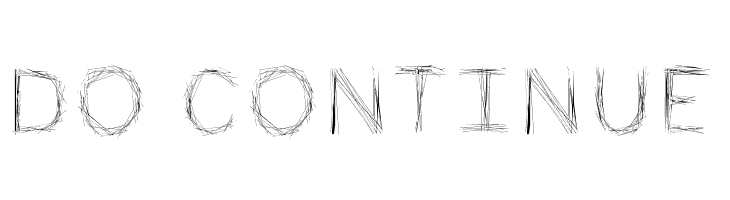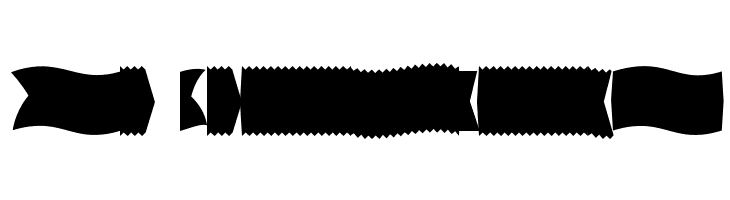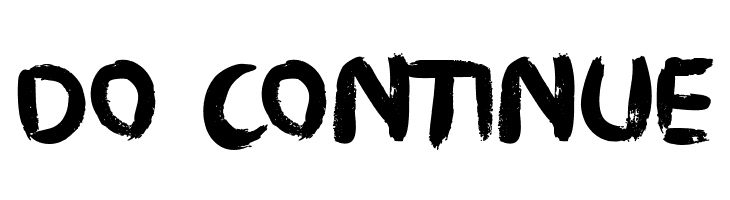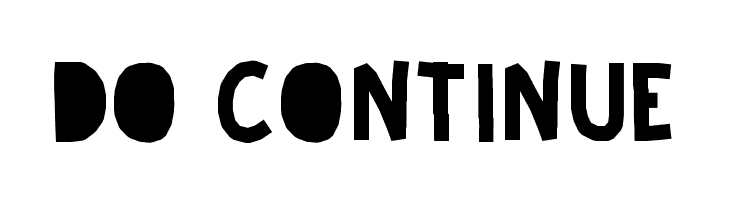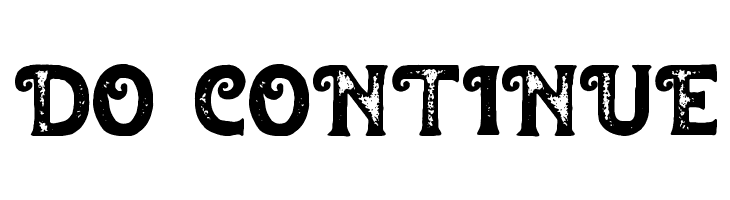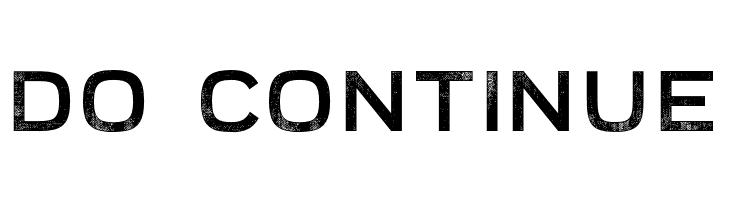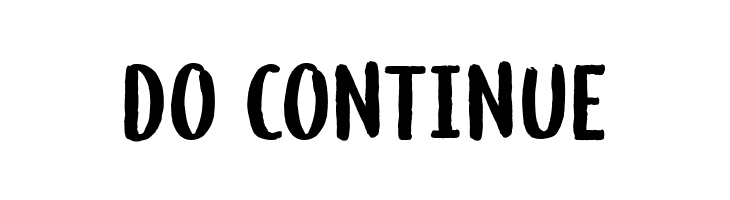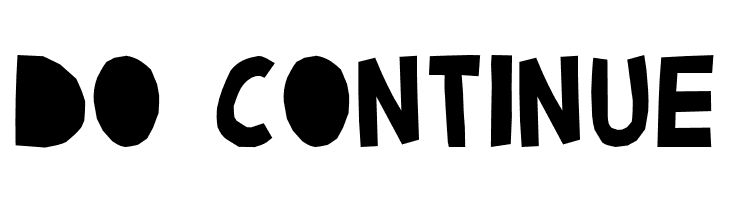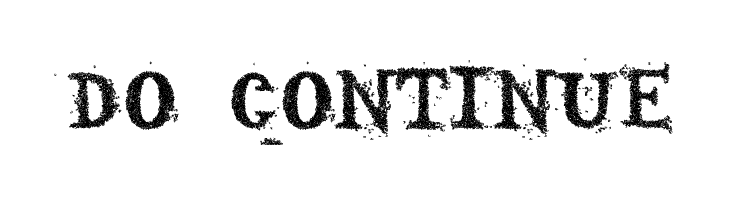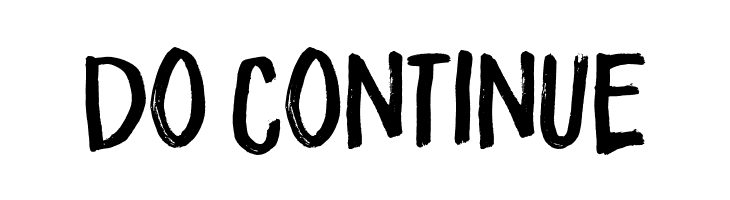
( Matt Bruinooge )
A sketch-like, hand-drawn font with dynamic, textured strokes.
( Måns Grebäck - www.mansgreback.com )
Festive, decorative banners and ribbons with varied edges and embellishments.
( Måns Grebäck - www.mansgreback.com )
A bold, brush-style font with a hand-painted, textured appearance.
( Nina - www.cookiesinthesky.com )
A playful, handcrafted font with a bold, paper-cut style.
( Nur Cholis Majid )
A bold, distressed font with a vintage, handcrafted appearance.
( Parker Creative - Alan Parker - fontbundles.net/parker-creative OFF SITE )
A distressed, bold font with a vintage, textured style.
( Phitradesign - Philip Trautmann - www.phitradesign-fonts.com )
A bold, hand-drawn font with a rustic and organic feel.
( PineStreetDigital - Pia Drent - cargocollective.com/piadrent OFF SITE )
A playful, irregular font with a hand-crafted, cut-out paper style.
( Pisto Casero - Gilberto Moya Perona - www.pistocasero.com )
A distressed, vintage-style serif font with a textured, handcrafted appearance.
( Pizzadude - Jakob Fischer - www.pizzadude.dk/ )
A bold, hand-painted font with a textured, artistic style.
( Poemhaiku - Huong Le Thi Thu - www.behance.net/poemhaiku )
A textured, handcrafted font with a chalk-like appearance.
( PutraCetol Studio - Putra Novembria Candra Kusuma - creativemarket.com/putracetol )
A tall, narrow font with a rough, vintage texture and a handcrafted feel.
( Qkila - Quentin Aquila - www.creativefabrica.com/designer/qkila/ )
A decorative font with stitching-like embellishments, offering a handcrafted and artistic feel.
( Rifan Asri )
A bold, slanted brush-style font with textured strokes and expressive character.
( Roman Paslavskiy - creativemarket.com/seveniwe )
A rugged, distressed font with a vintage, weathered look.
( Runsell Studio - creativemarket.com/RunsellStudio )
A bold, vintage serif font with a hand-crafted look.
( Sizimon.id - creativemarket.com/sizimon )
A bold, brush-style font with a dynamic, handcrafted appearance.
( Timmy Wakefield )
A classic, distressed font with medium contrast and a hand-crafted feel.
( William Jeovah de Medeiros - www.william.com.br )
A bold, rugged font with thick strokes and a hand-crafted appearance.
( Woodcutter - woodcutter Manero - www.woodcutter.es )
A bold, handcrafted font with a strong, impactful design.
( Woodcutter - woodcutter Manero - www.woodcutter.es )
A bold, distressed font with a vintage, woodcut style.
( Woodcutter - woodcutter Manero - www.woodcutter.es )
A bold, distressed font with a rugged, hand-crafted appearance.
( Xerographer Fonts - Max Infeld - xerographer.blogspot.com )
A bold, playful font with a distressed, hand-crafted appearance.
( Xerographer Fonts - Max Infeld - xerographer.blogspot.com )
A textured, hand-drawn font with a vintage, artisanal style.
( Zetafonts - www.zetafonts.com )
A bold, distressed font with a vintage letterpress effect and narrow, textured characters.
( dcoxy - Greg Medina - www.dcoxy.com/ )
A bold, textured script font with a distressed, vintage look.
( g14296 )
Outlined decorative dingbat font with playful icons and patterns.
( gameboth studio - Bhahtiar Nugroho Adiputro )
A bold, rustic font with a textured, vintage appearance.
A bold, rugged font with a hand-crafted, vintage appearance.
A bold, hand-crafted font with a playful and artistic style.
A bold, rugged font with a hand-drawn, vintage aesthetic.
A bold, retro-inspired font with a playful and hand-crafted appearance.
A bold, brush-style font with dynamic, handcrafted strokes.
A bold, distressed font with a rugged, vintage appearance.
A bold, distressed font with a rugged, hand-crafted look.